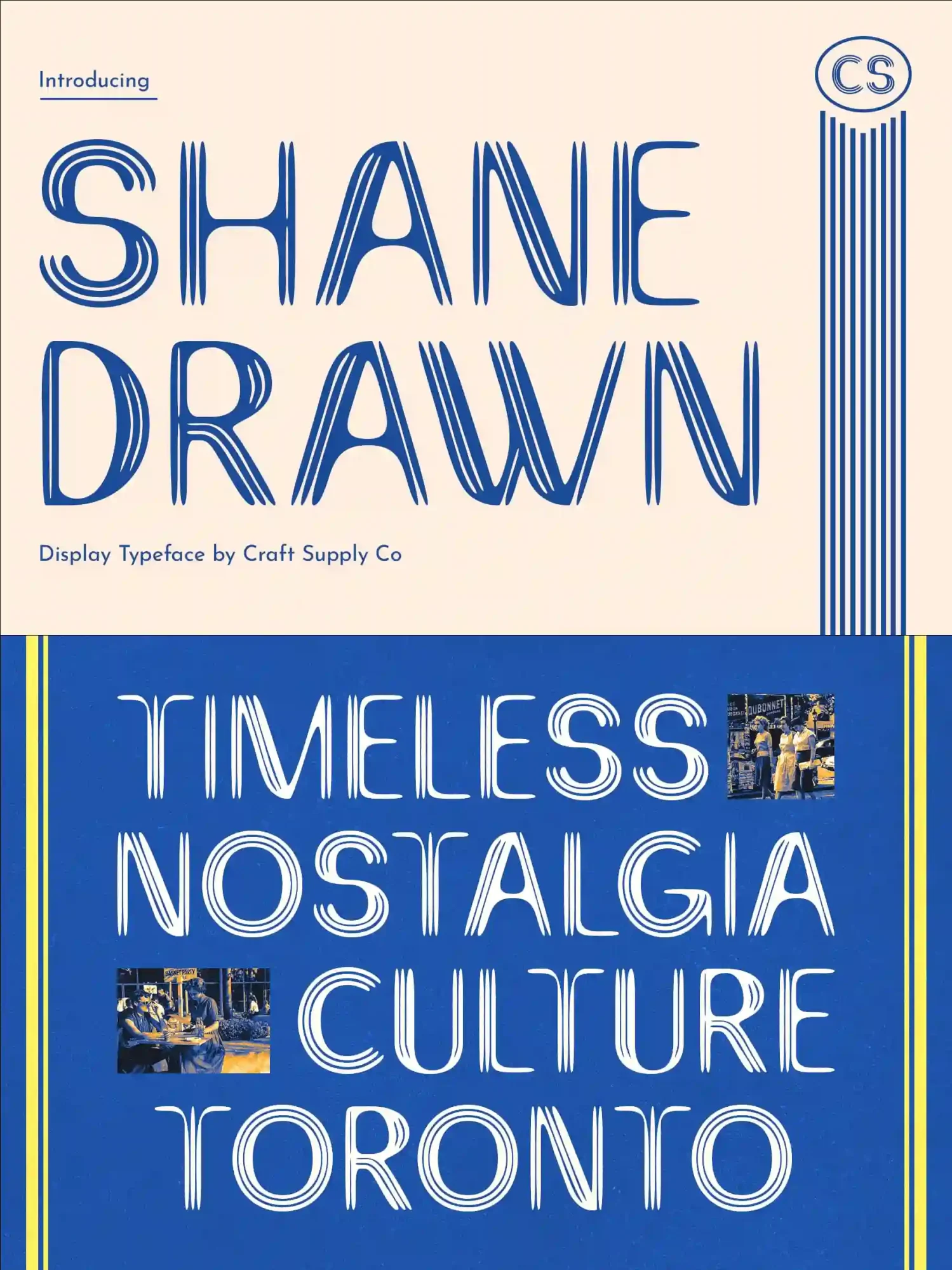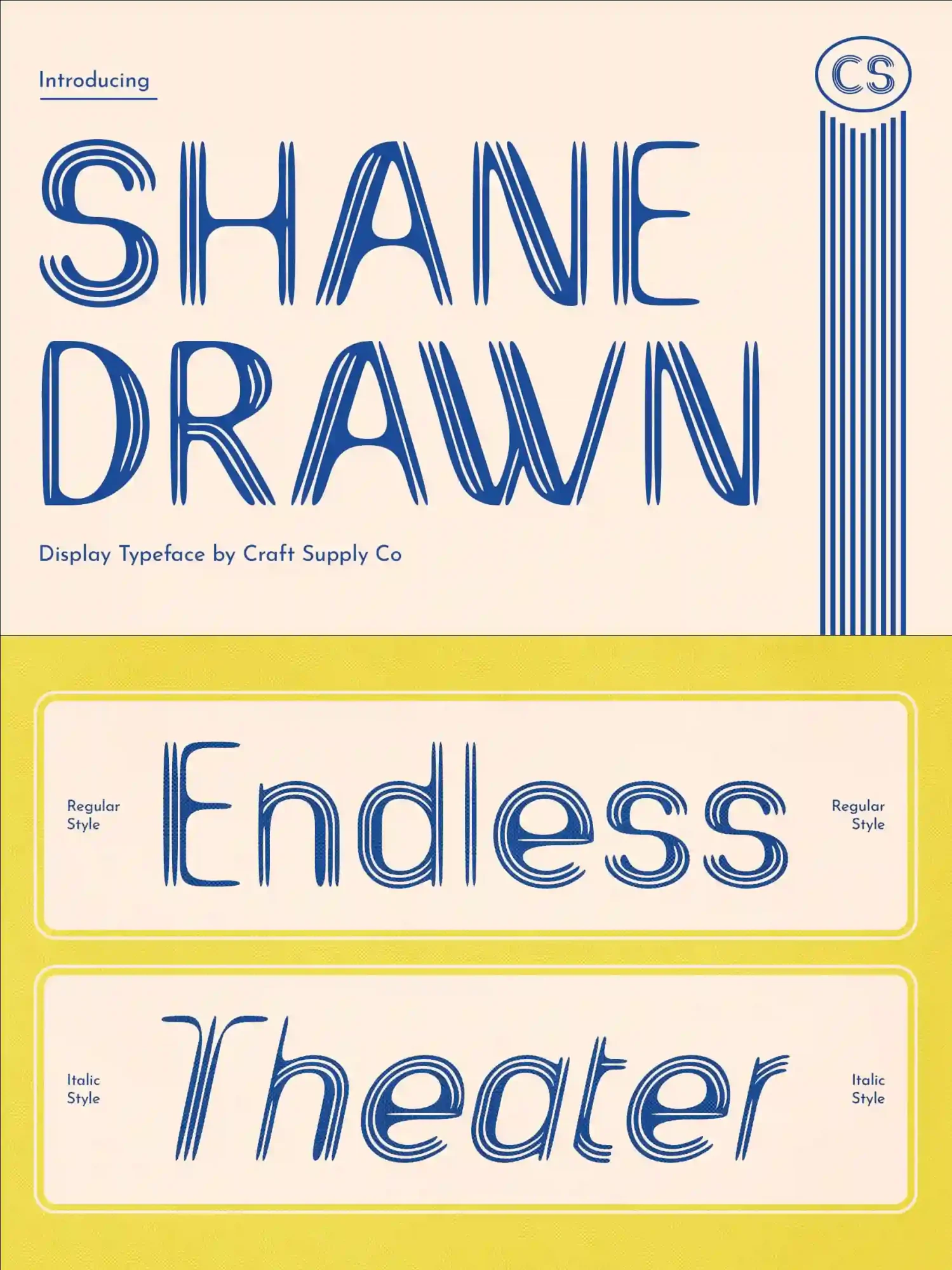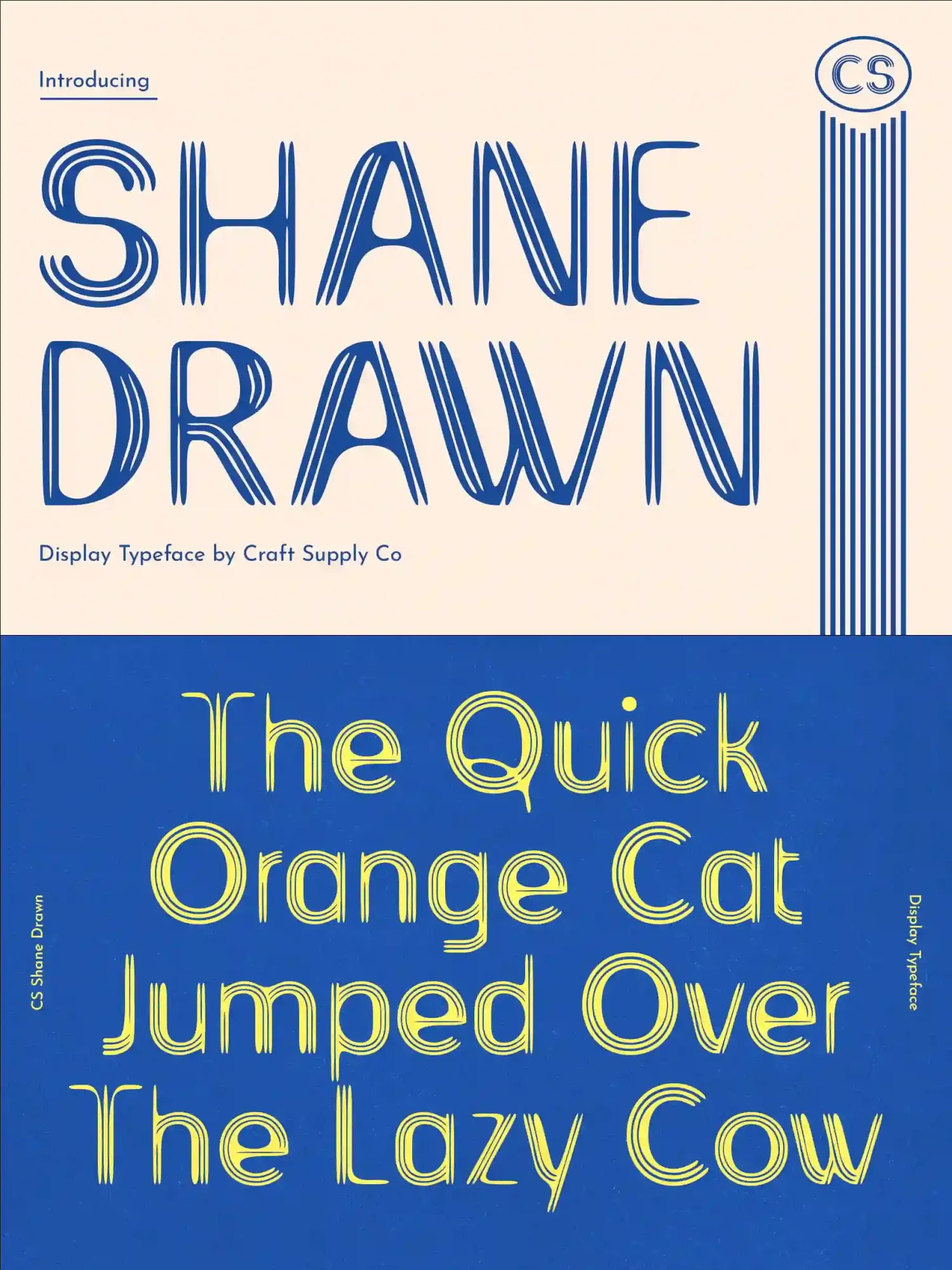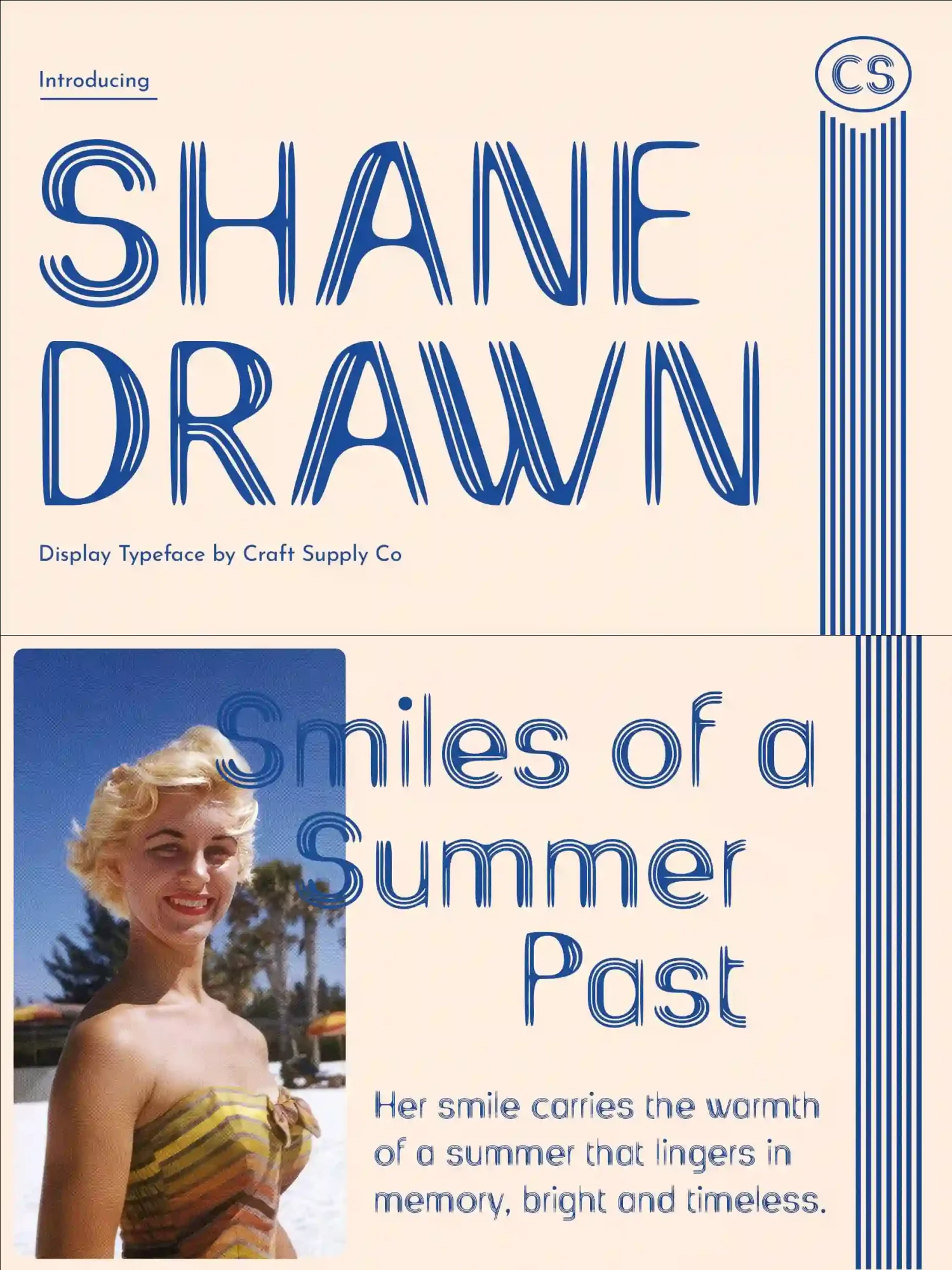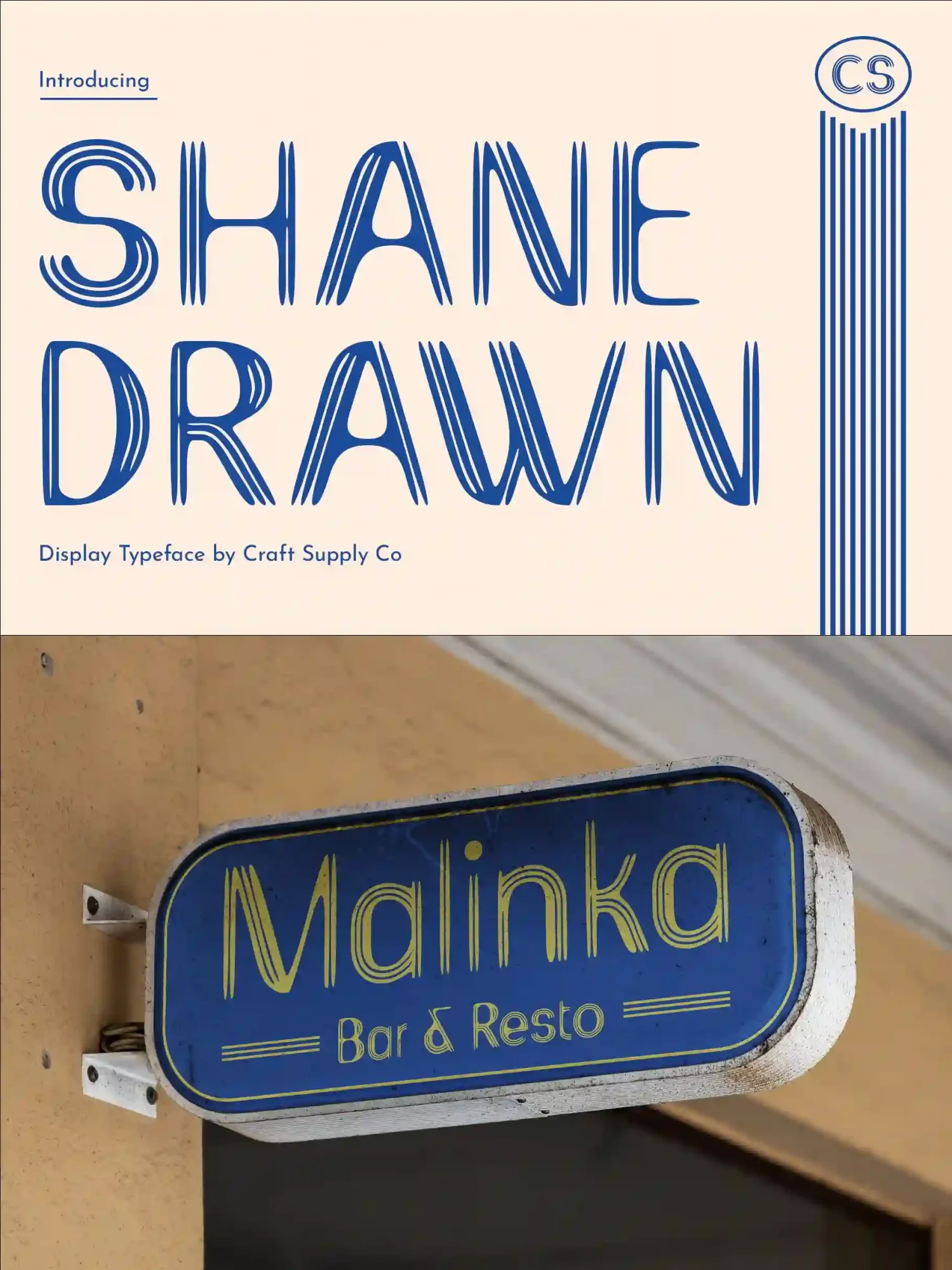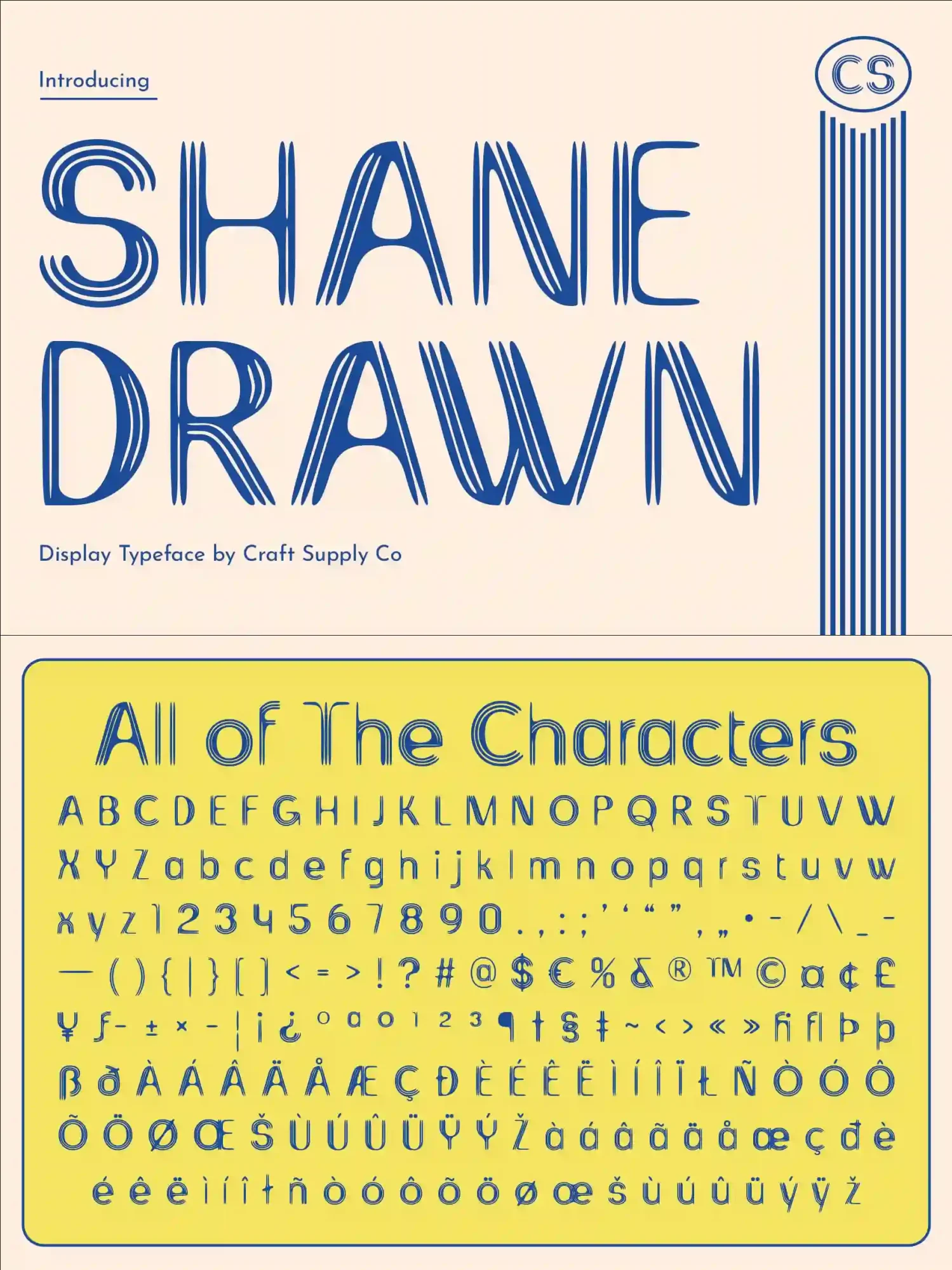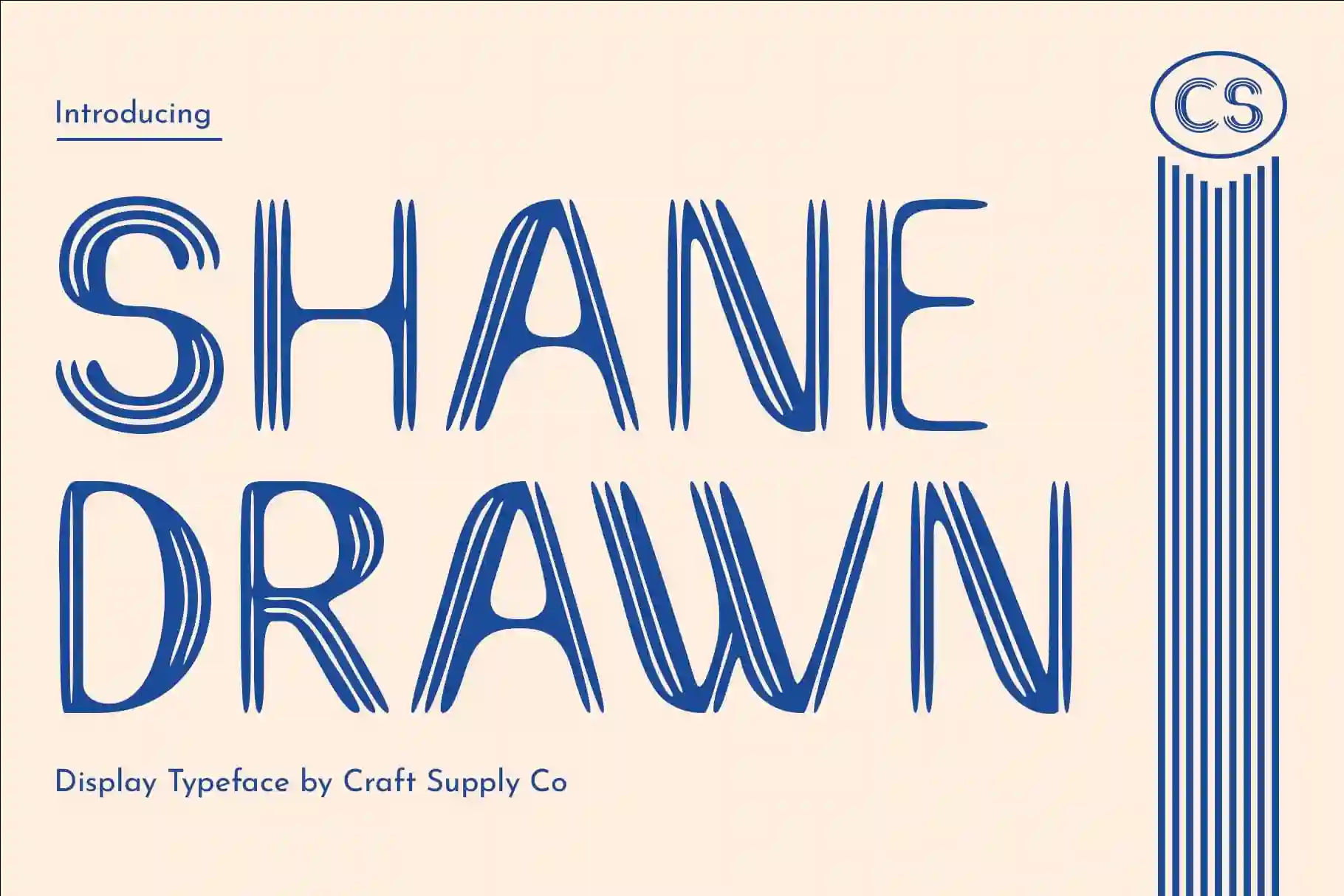
CS Shane Drawn – Striped Display Font with Vintage Handcrafted Texture: Scribble-Inspired Design
Scribbled with Precision
CS Shane Drawn is a unique stripe font that blends the look of scribbled strokes with a structured design. Its hand-drawn texture mimics the effect of ballpoint pen lines, giving each character a crafted, authentic quality. Despite its scribbled influence, the font maintains consistency and balance, making it both expressive and reliable.
Stamp-Like Vintage Effect
The striped structure of CS Shane Drawn creates a visual rhythm, reminiscent of stamped lettering. Each letterform carries a vintage tone, perfect for projects that aim to evoke a classic, nostalgic atmosphere. The hand-drawn detailing enhances its retro appeal while keeping it bold and legible for display purposes.